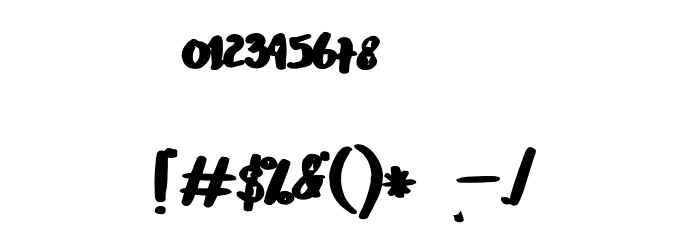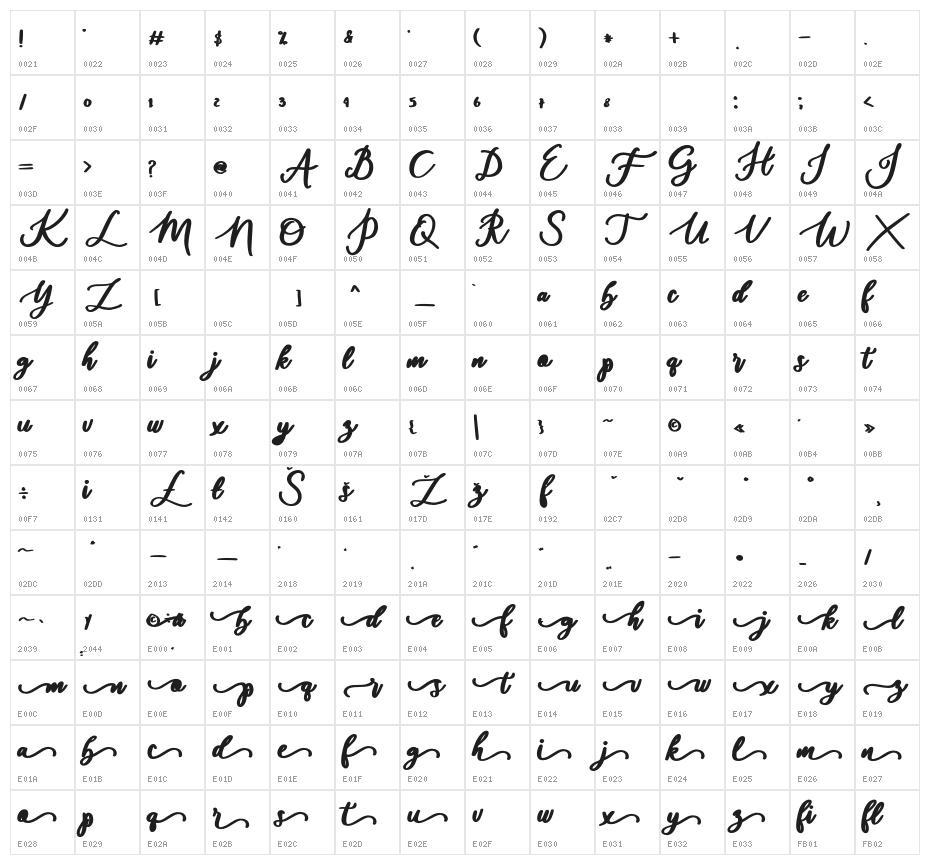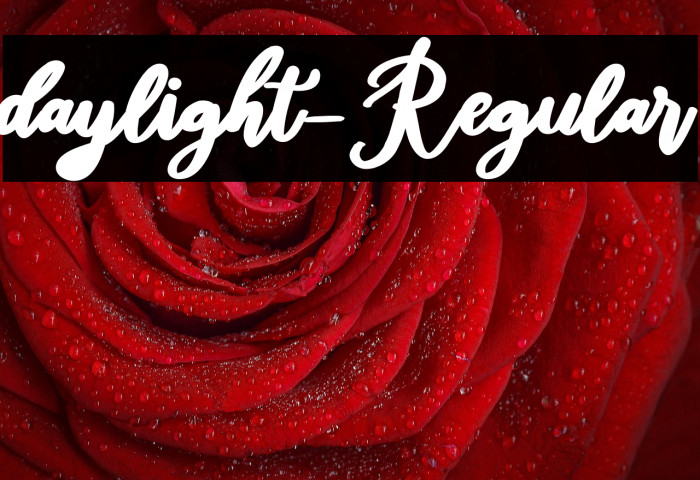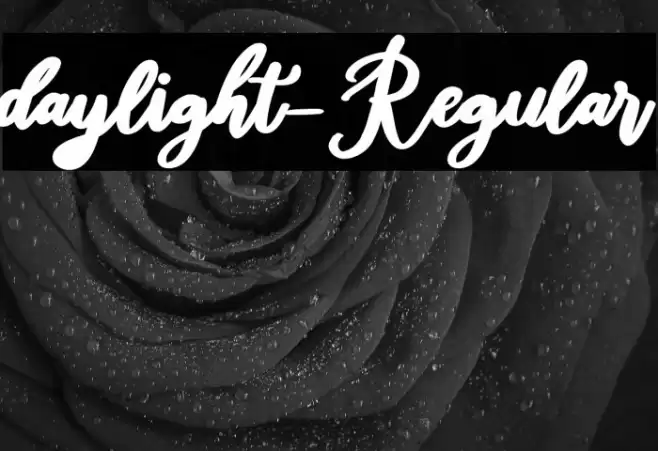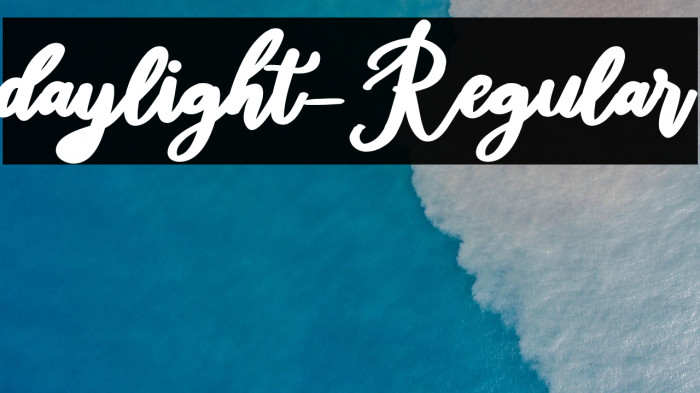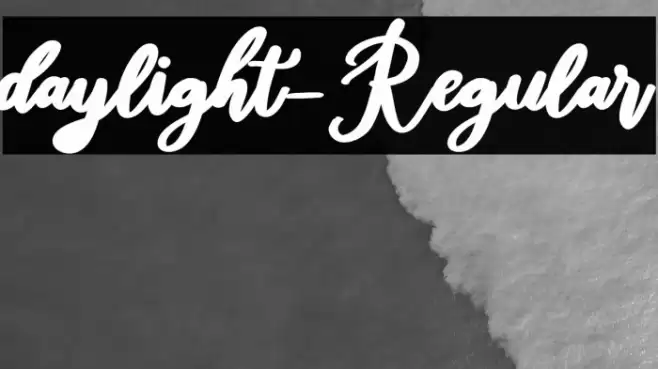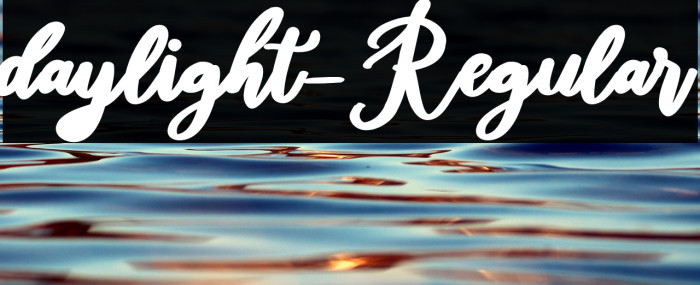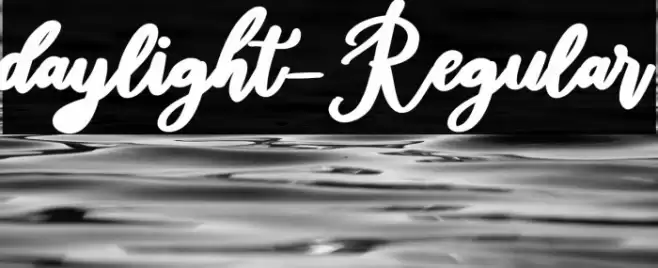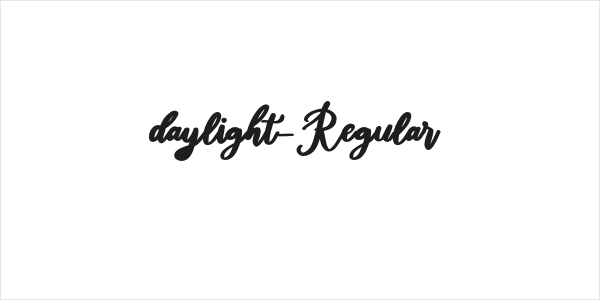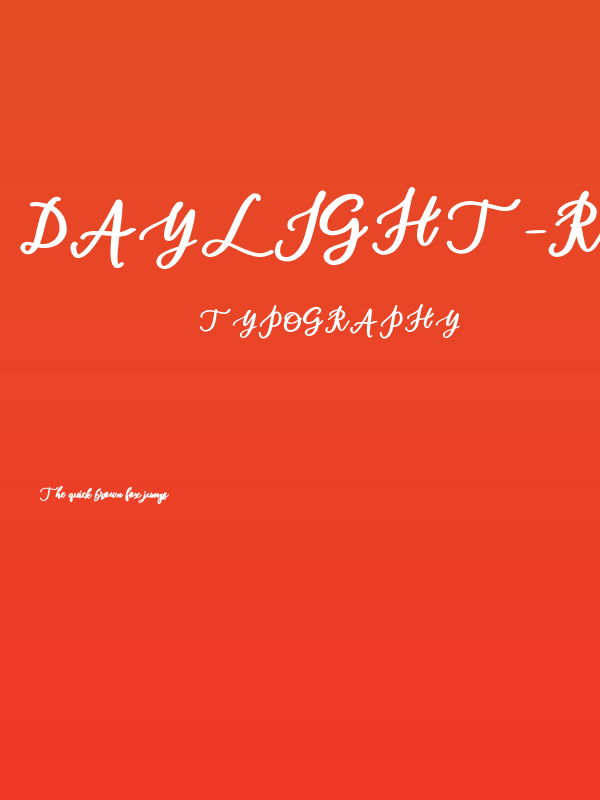
daylight-Regular Font
daylight-Regular Description
This font features a dynamic and fluid script style, characterized by its elegant and flowing letterforms. The uppercase letters are gracefully connected, while the lowercase letters exhibit a bold and confident stroke. The numbers and special characters maintain the same fluidity, ensuring a cohesive look across all text elements. The font's design is both modern and timeless, making it suitable for a variety of applications. Its bold strokes and smooth curves create a sense of movement and energy, perfect for adding a personal touch to any project.
| Proposed Projects | Ideal for wedding invitations, branding, logos, and greeting cards. |